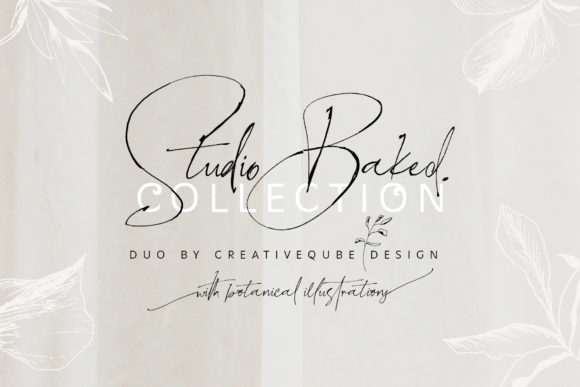
Journey into the realm of elegance and creativity with Studio Baked, a captivating script font that will transform your designs into masterpieces. Its delicate hairlines and flowing curves dance across the page, evoking a sense of timeless beauty and sophistication.
With Studio Baked, you hold the key to crafting enchanting wedding invitations that capture the essence of love and commitment. Its graceful characters will add a touch of romance and whimsy to your special day, leaving a lasting impression on your guests.
Unleash your artistic flair and create breathtaking stationary art with Studio Baked. Its versatility knows no bounds, allowing you to effortlessly design eye-catching posters, flyers, and business cards that will leave a lasting impression.
Elevate your social media presence with Studio Baked's magnetic charm. Its visually stunning letters will make your posts pop, attracting followers and engaging your audience like never before.
Immerse yourself in the world of Studio Baked, a font that will ignite your creativity and elevate your designs to new heights. Its timeless elegance and captivating beauty will leave you spellbound, inspiring you to create designs that resonate with your audience and leave an indelible mark on their hearts.